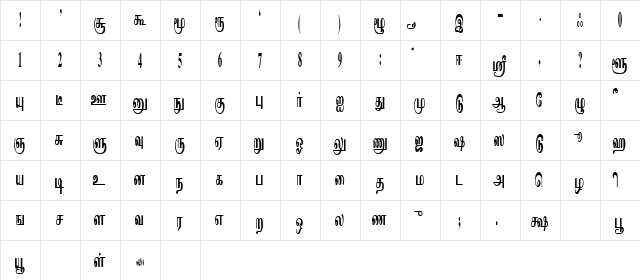
Imayam Regular
Design Context for Imayam Typeface
Imayam takes a measured approach to typography — its balanced proportions and neutral character make it a reliable workhorse for both digital and print work.
Pro Tip: Pair Imayam with a font of contrasting weight or personality to build a more expressive typographic hierarchy.